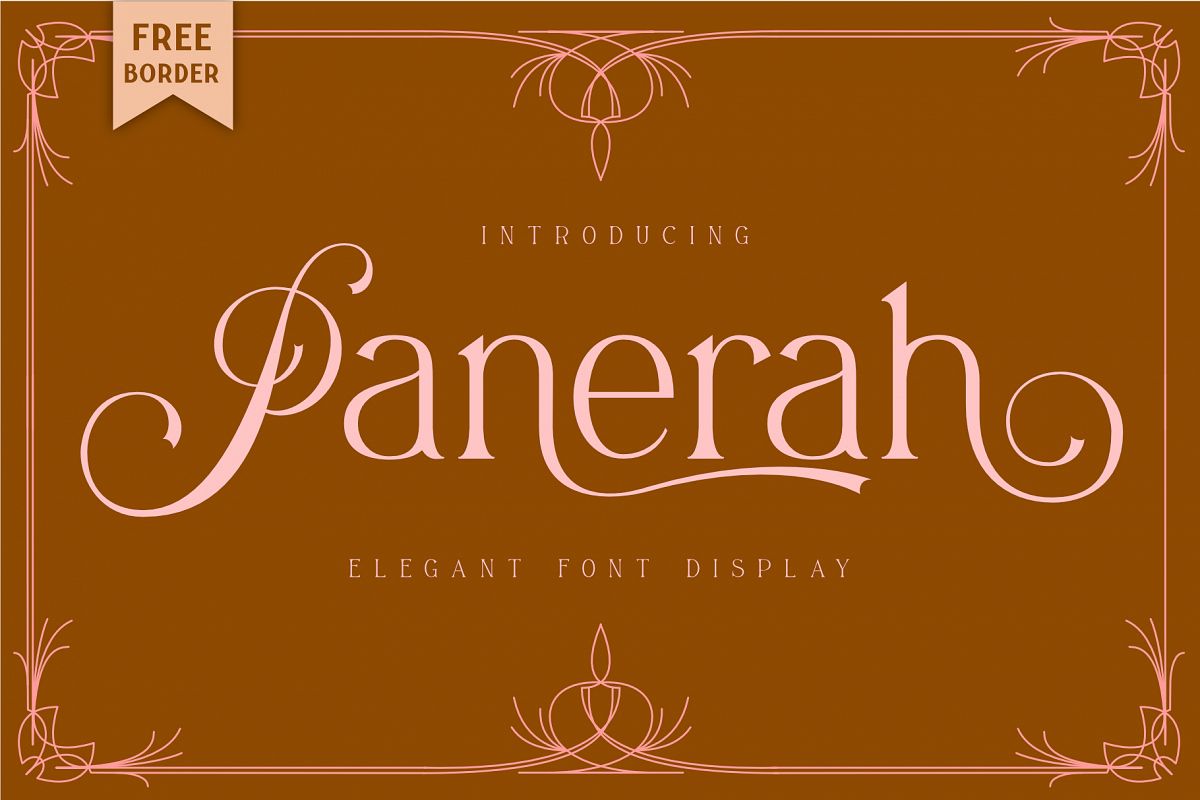
Panerah
Introducing PanerahPanerah is an elegant serif font. inspired by classic style but looks modern. has a beautiful aesthetic when characters and alternative bonds are combined. even more so to make logos, invitation cards, posters and others, it will look perfect when juxtaposed with the beautiful borders contained in this font package, so what are you waiting for.What's included?
• Uppercase Characters
• Lowercase Characters
• Foreign Languages Support: ÀÁÂÃÄÅÆÇÈÉÊËÌÍÎÏÐÑÒÓÔÕÖØÙÚÛÜÝßàáâãäåæçèéêëìíîïñòóôõöøùúûüýÿ